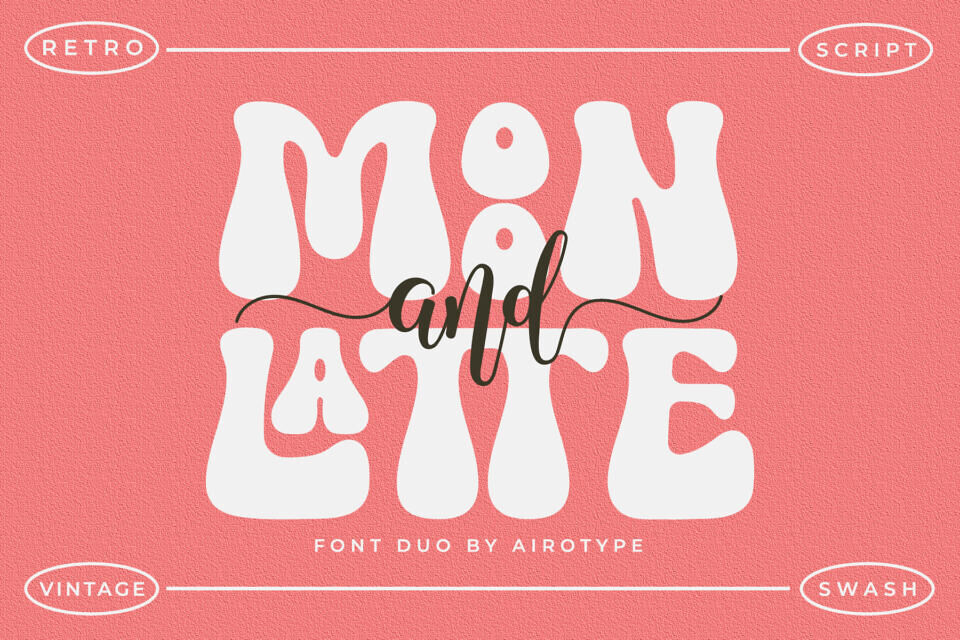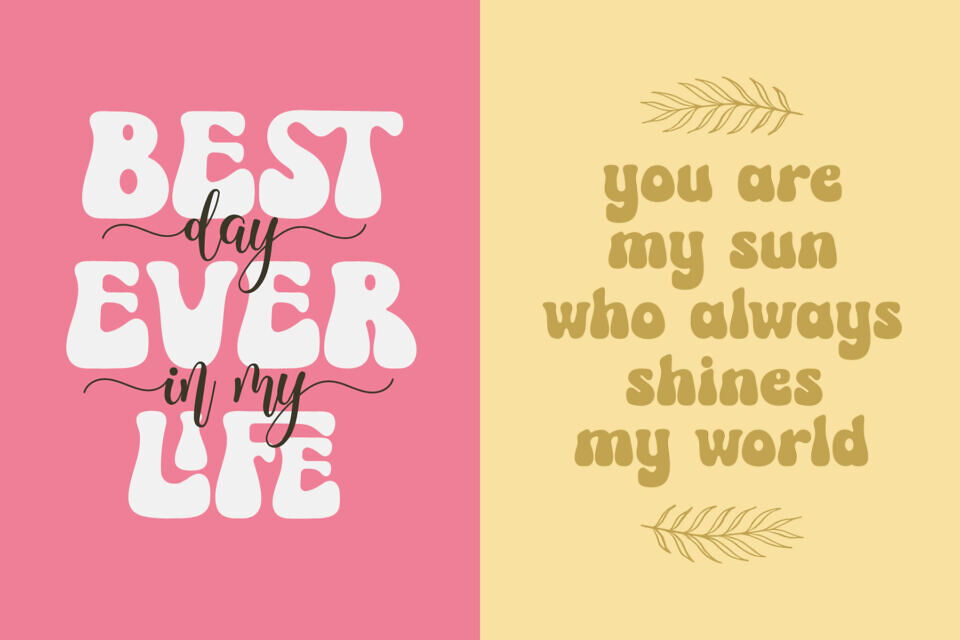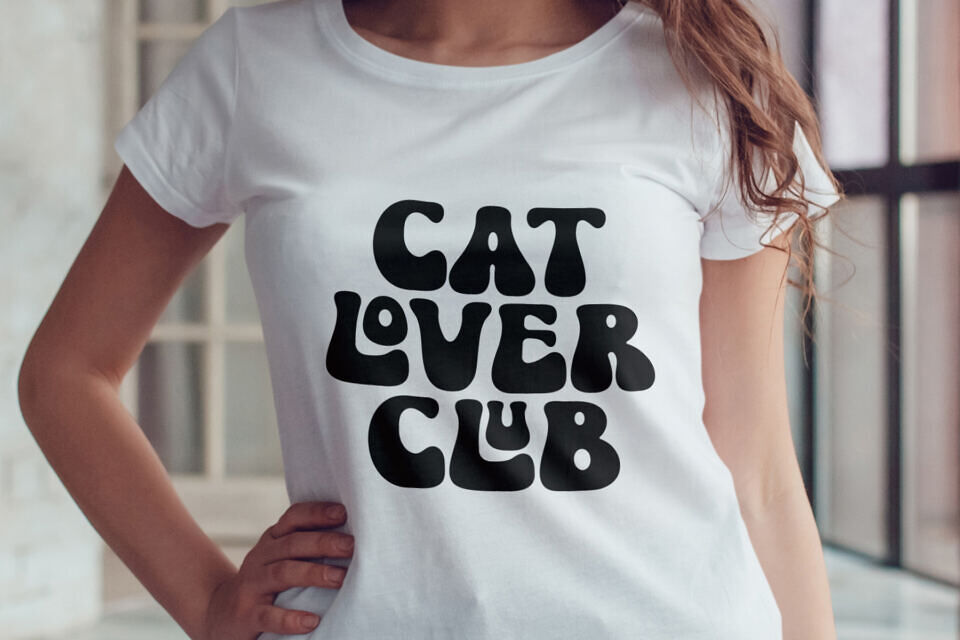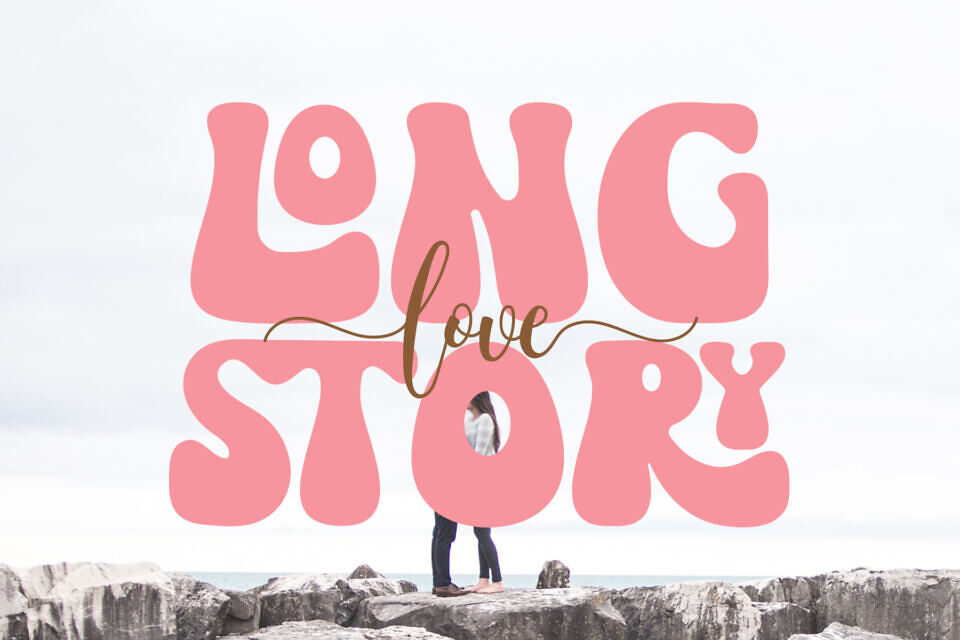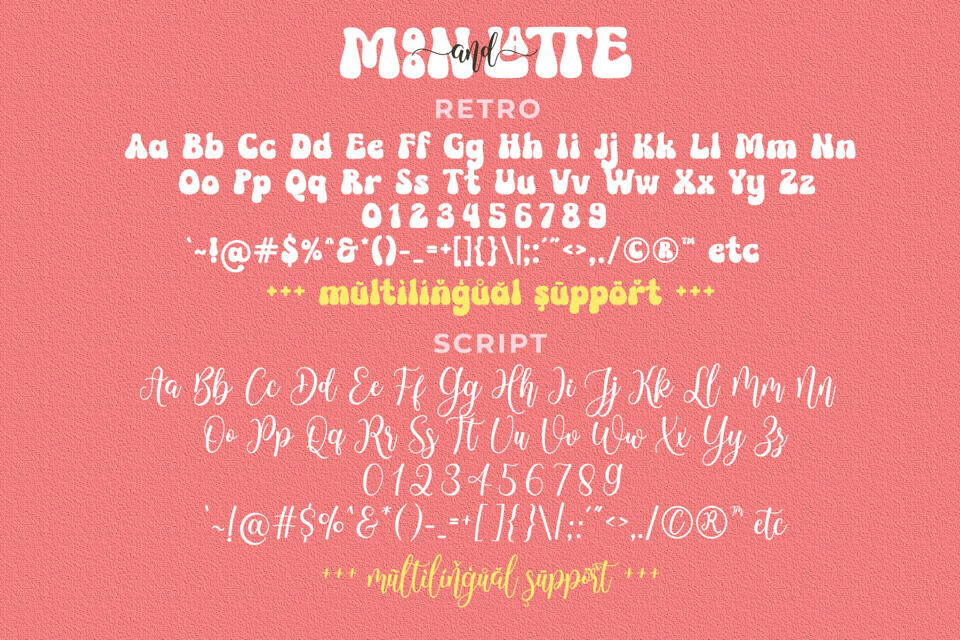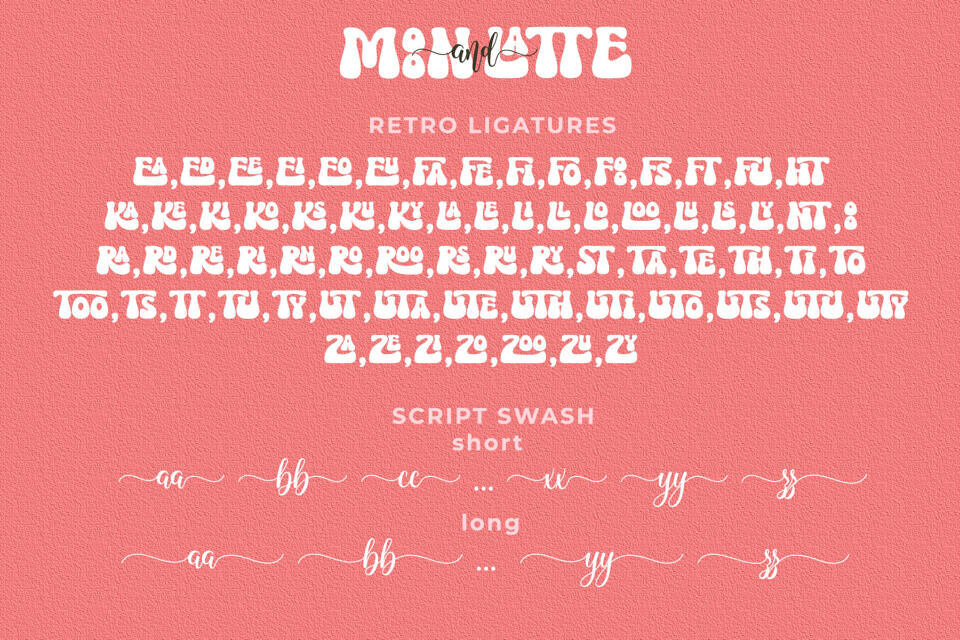
Moon And Latte Font
Moon and Latte is a modern and exquisite duo font that is the perfect pairing of a script and display fonts. The script font features elegant, flowing letterforms, while the display font boasts bold, eye-catching shapes. Use them separately or together to create stunning designs for branding, packaging, and more. Elevate your work with this dynamic duo!